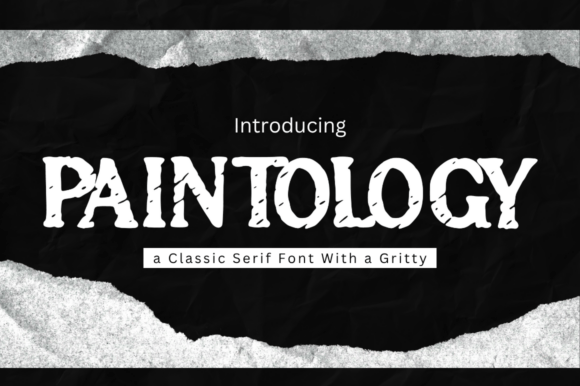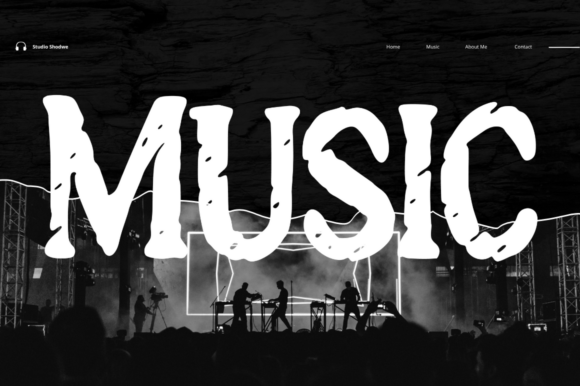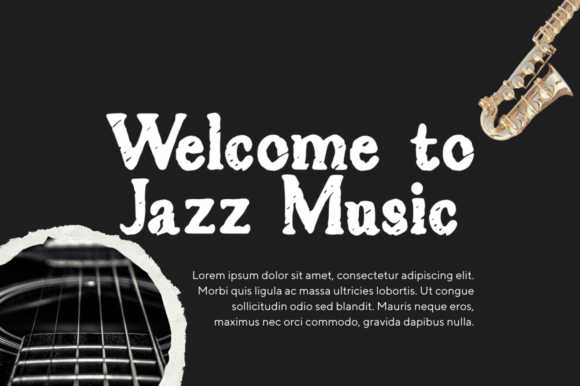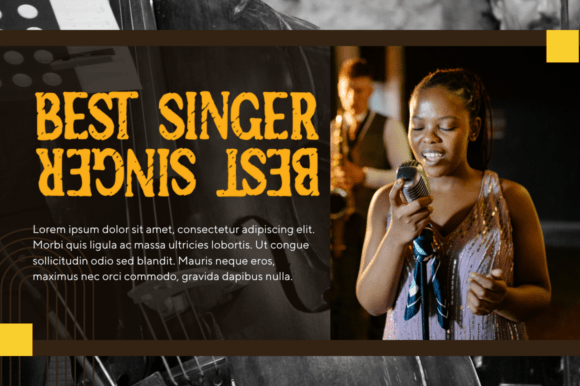
Paintology Font
About the Paintology Font
The Paintology Font is here to transform your projects with its distinctive character and style. Paintology Font is a classic serif font with a gritty, textured twist. Its vintage letterforms are combined with worn-out edges and ink splatters, making it ideal for horror titles, historical themes, underground zines, retro posters, and anything that demands a raw, rugged look. Perfect for designs that want to balance tradition and rebellion
Paintology excels in headlines, posters, and short text applications where its bold, rebellious character can make a statement. It’s particularly effective for branding projects aiming for a vintage or gritty aesthetic, such as a whiskey label, a horror film poster, or a clothing line with a rebellious edge. Avoid using it for body text or UI elements; the textured detail is too distracting for long reads or user interfaces requiring high legibility.
For effective pairings, consider pairing Paintology with a clean sans-serif like Futura or a geometric sans-serif like Bebas Neue for a strong contrast. This juxtaposition highlights the font’s texture and vintage feel. A more subtle pairing could involve a classic serif like Garamond for a traditional yet refined balance. Scripts like Playfair Display might work for secondary text elements, offering a touch of elegance.
The overall personality of Paintology is bold, rebellious, and vintage. Its grittiness and texture convey a sense of authenticity and history, making it perfect for projects that value a raw, unapologetic aesthetic.
Paintology Font Usage Examples
Paintology Font Example